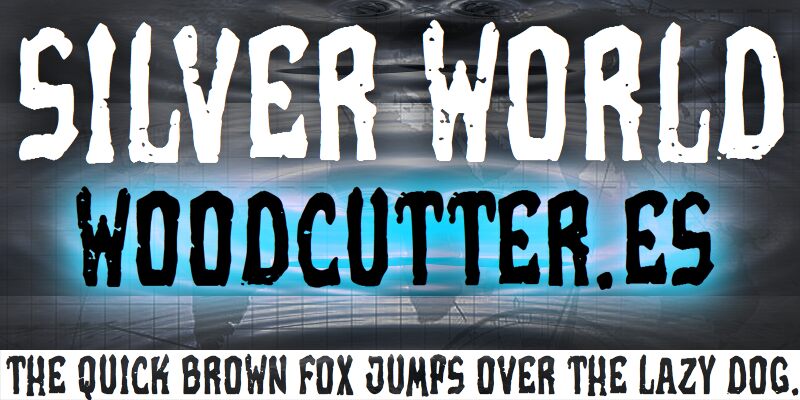
Silver World
Silver World, the daring creation of Woodcutter, is an eroded display font that will ignite your creative projects. With its edgy and weathered appearance, this extra-condensed typeface adds a touch of vintage charm to any design.
Perfect for album covers that evoke nostalgia or grunge-inspired posters advertising underground events. Let the eroded texture of Silver World transport your audience to a bygone era while making a bold statement in branding initiatives or captivating headlines.
Unleash the power of this unique font and watch your designs shine with an irresistible allure.